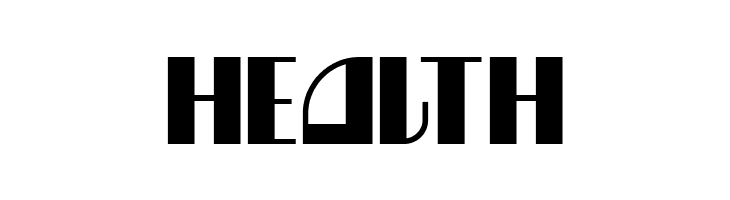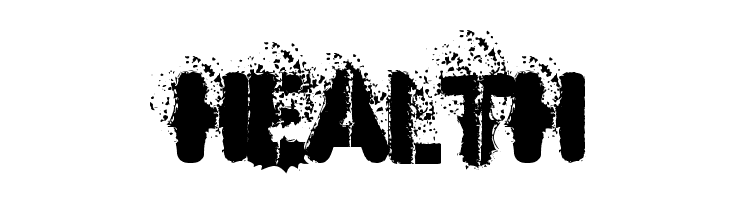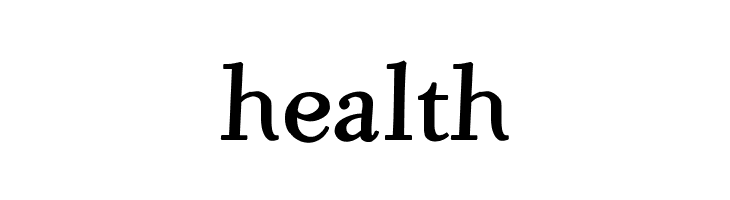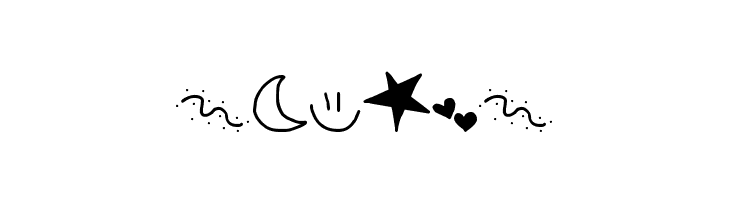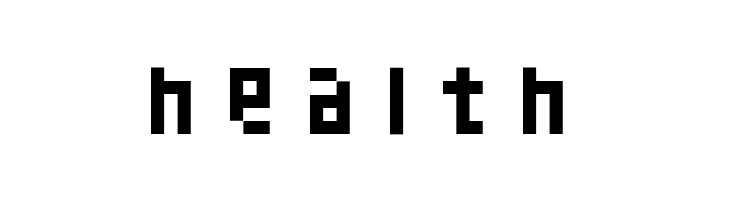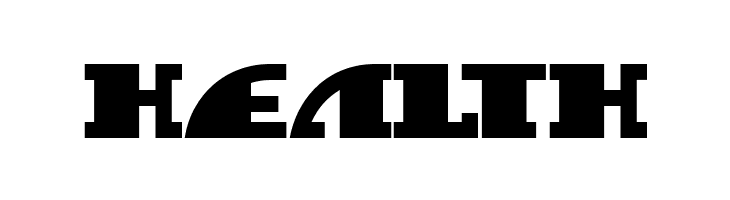
• MTF Doodle
A playful collection of hand-drawn doodle symbols with a whimsical style.
• MTF Dreamie
A whimsical, handwritten font with playful swirls and loops.
• MTF Heart Doodle
Hand-drawn decorative font with whimsical heart doodles.
• MTF Messy
A playful, handwritten font with a casual and whimsical style.
• MUDSHAKE 83
A bold, distressed font with an ink-splattered, gritty appearance.
• Munchausen NF
A bold, geometric font with sharp edges and a modern aesthetic.
• Music For Your Ears
A geometric, modular font with bold outlines and a digital, futuristic style.
• MutantA-MediumOblique
A modern serif font with medium weight and oblique style, offering elegance and functionality.
• MW TACO
• My Gal Swoopy NF
A bold, geometric font with dynamic curves and angles, offering a modern yet retro aesthetic.